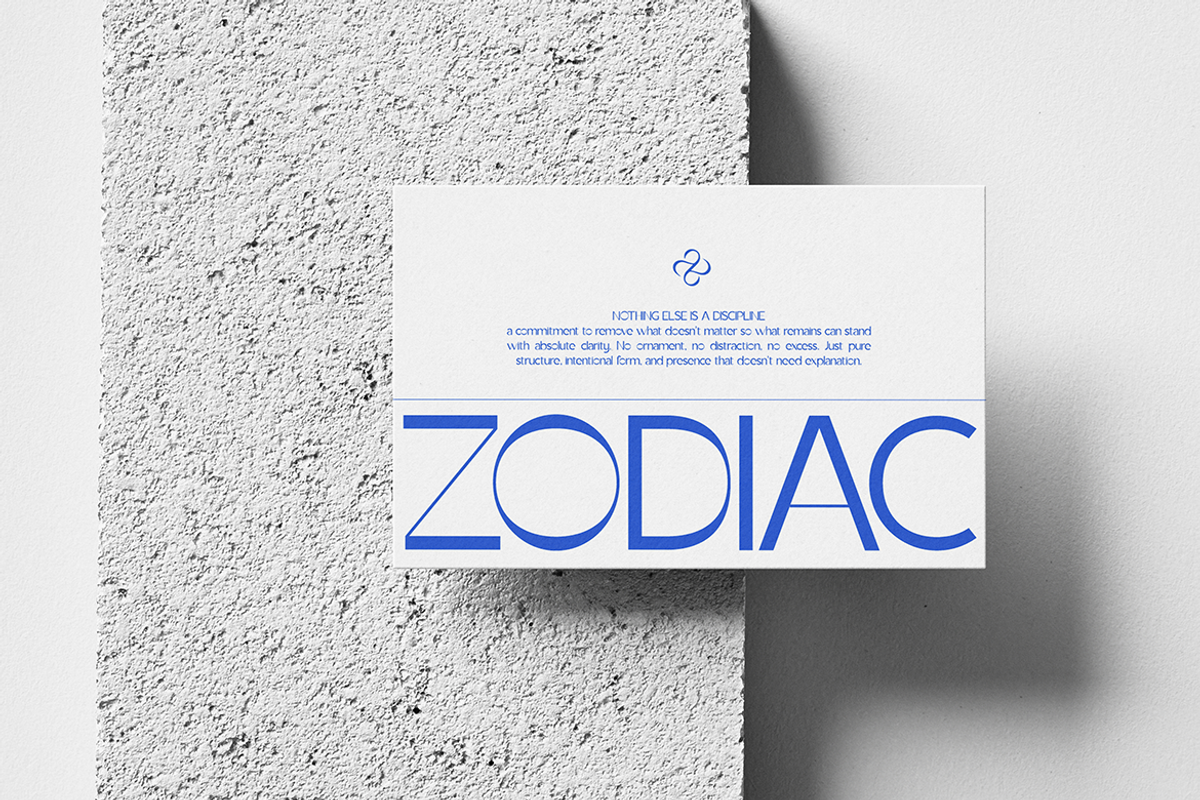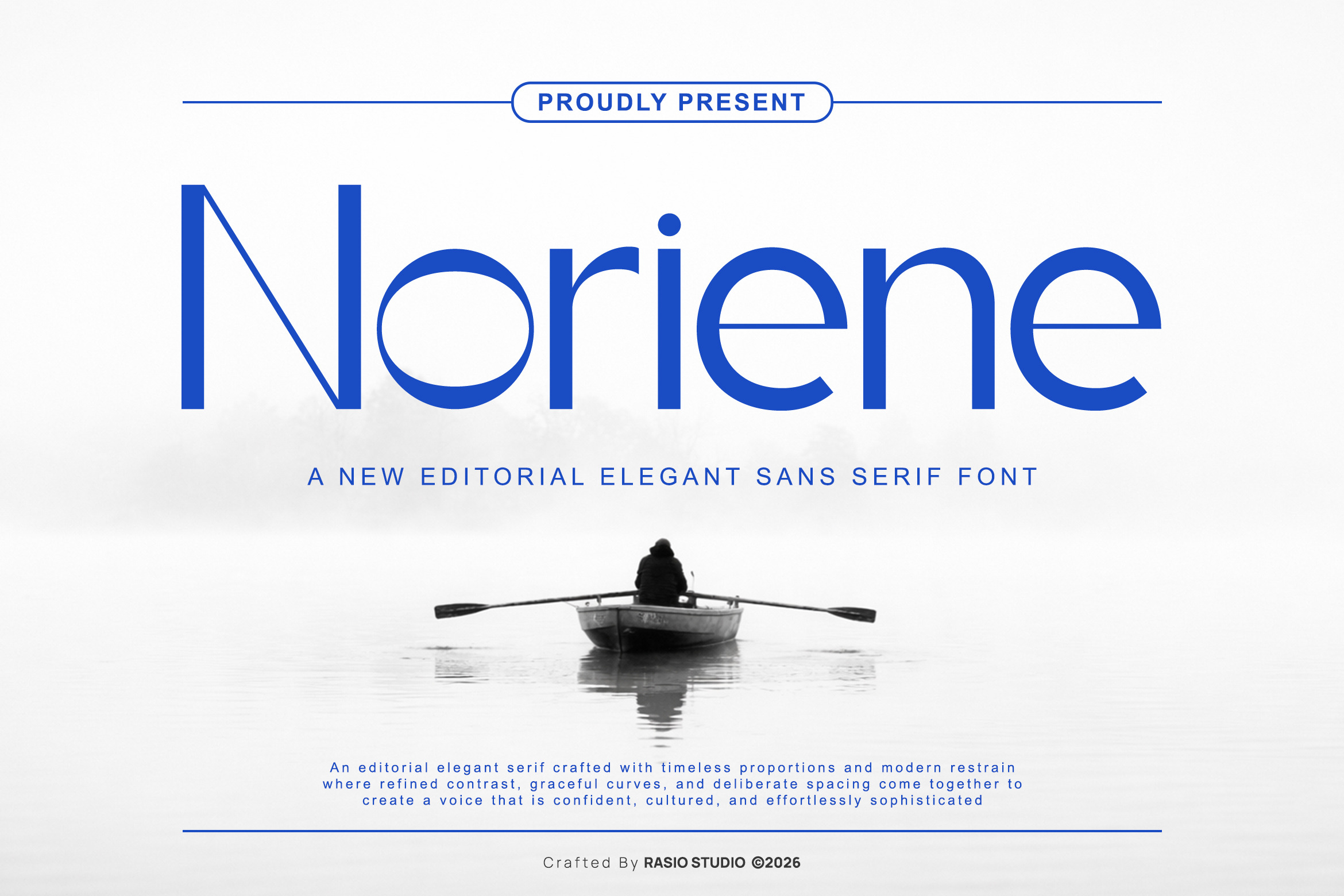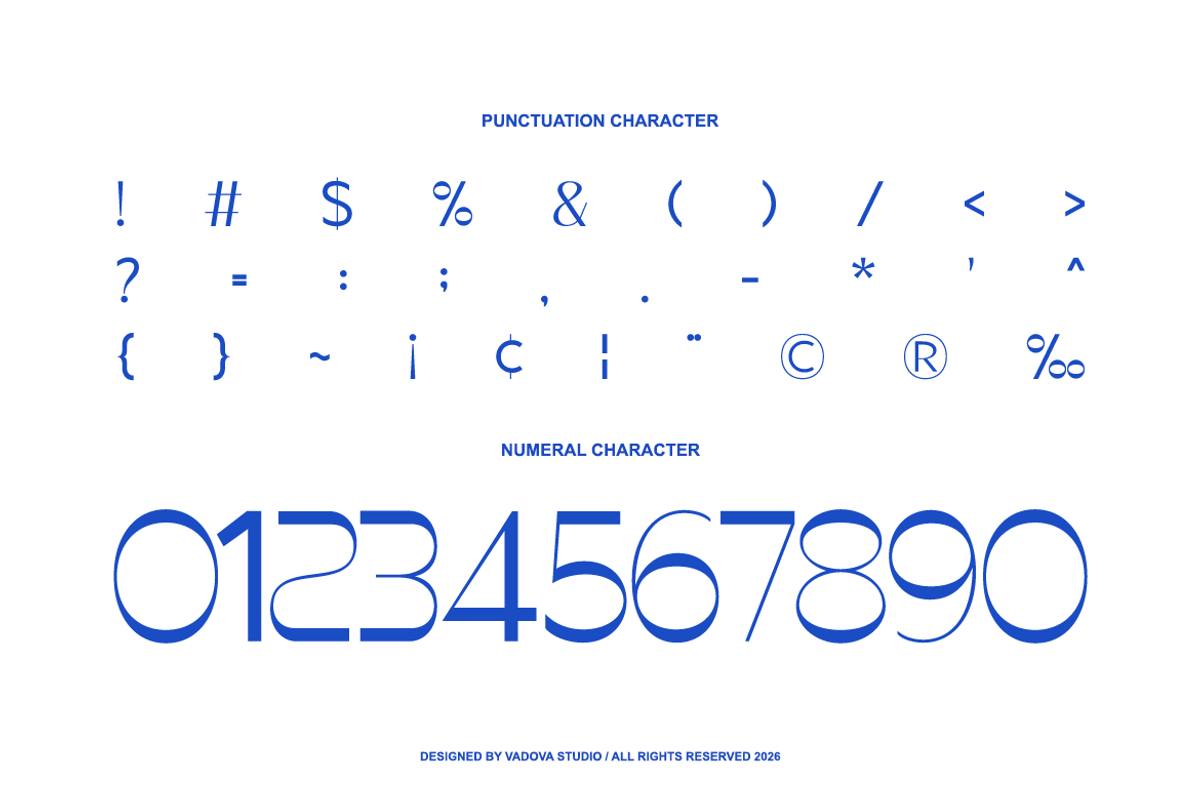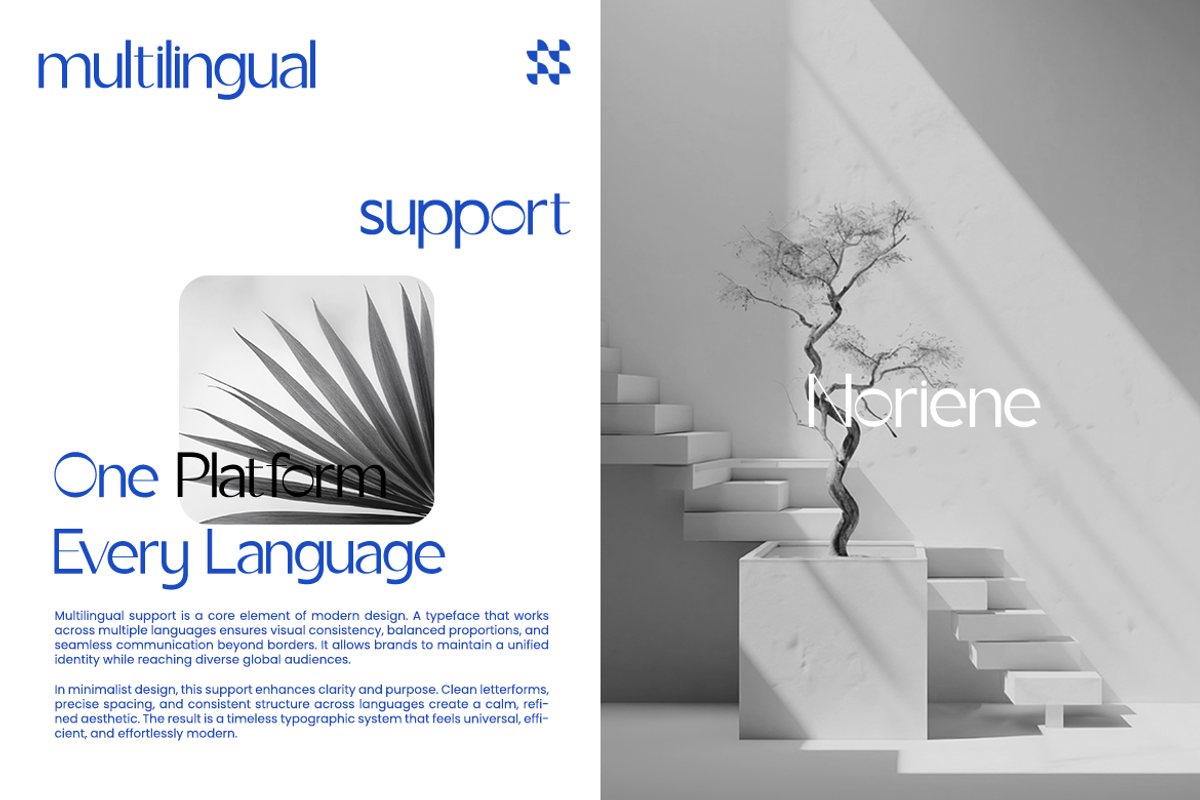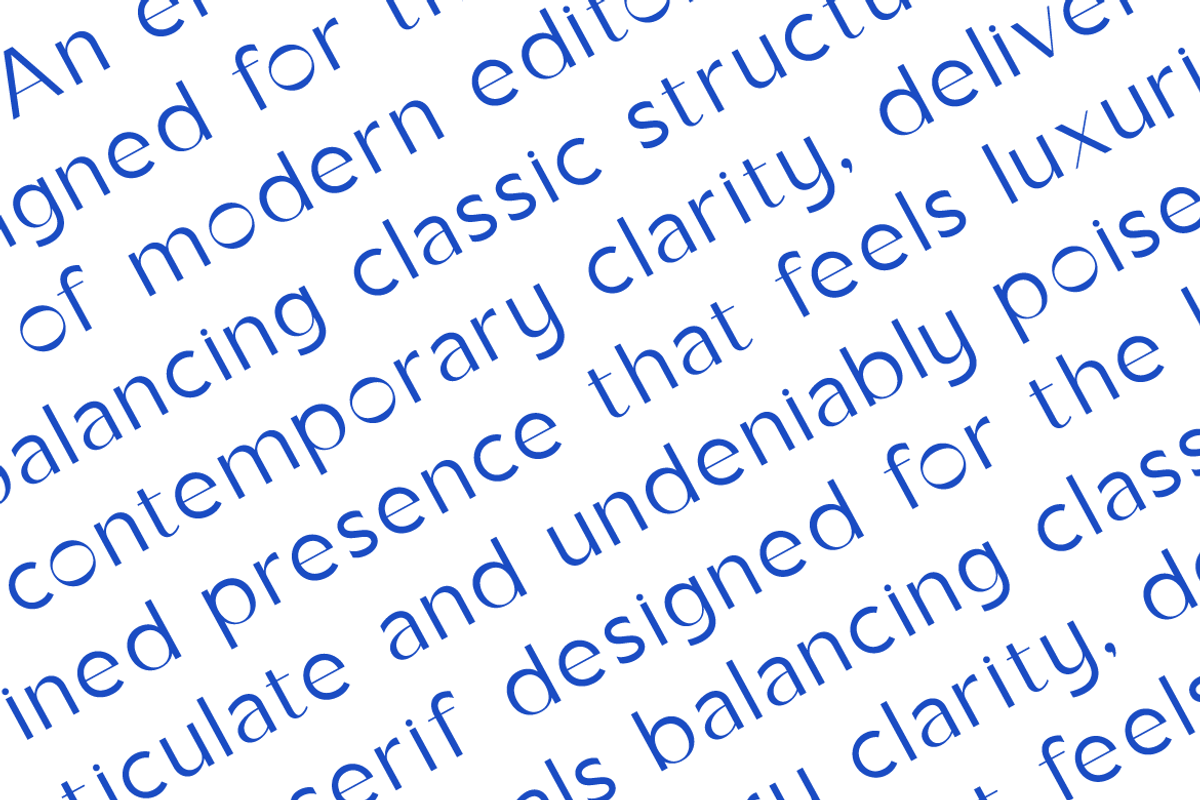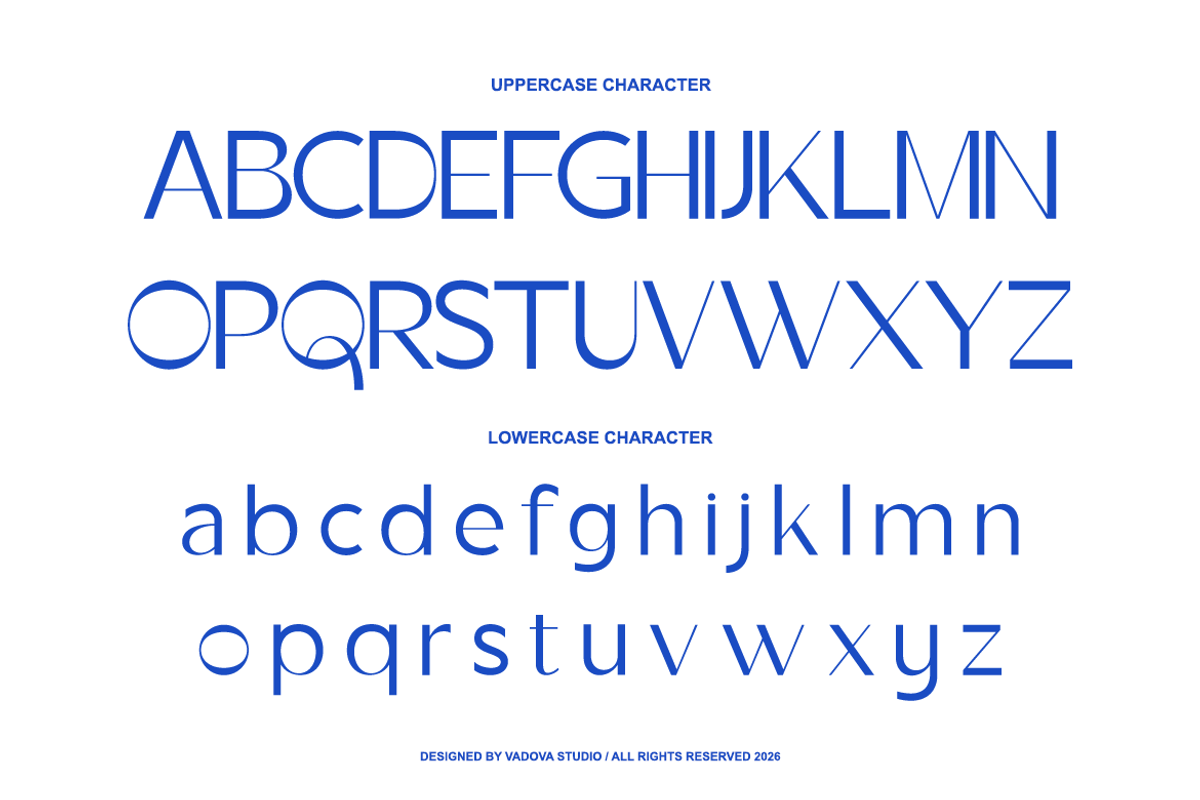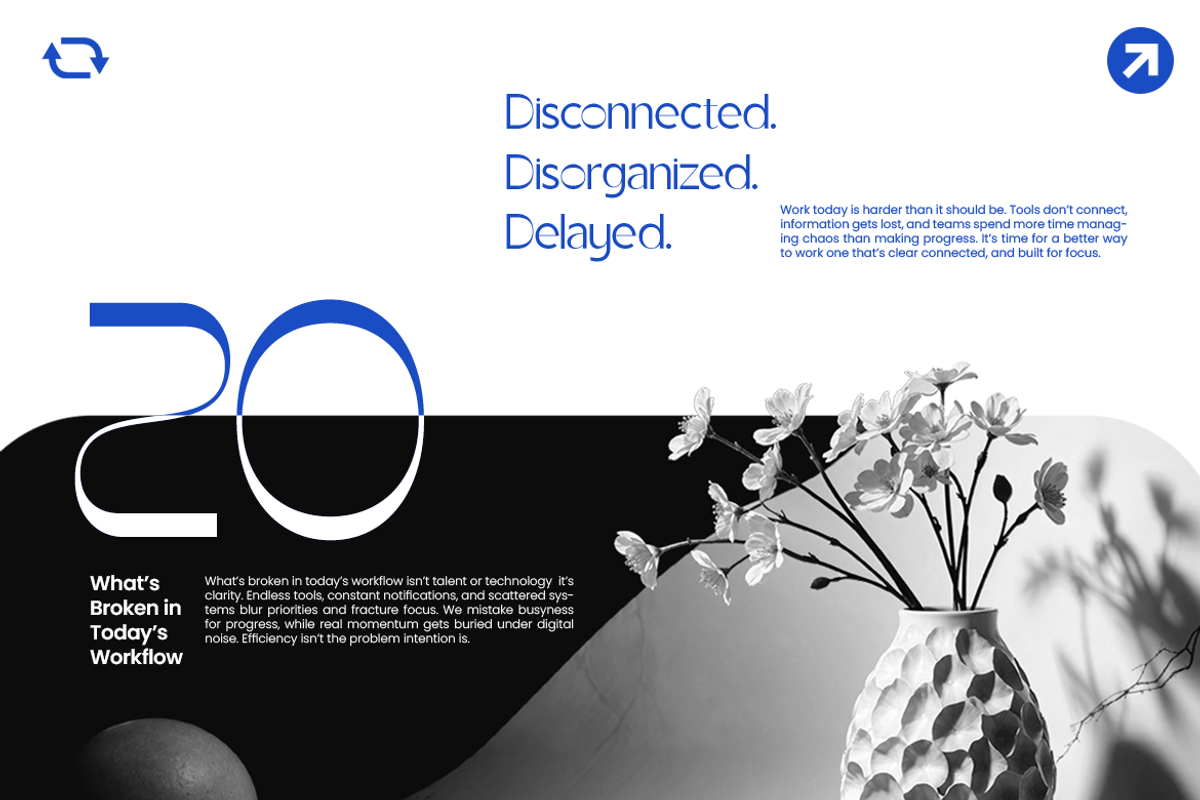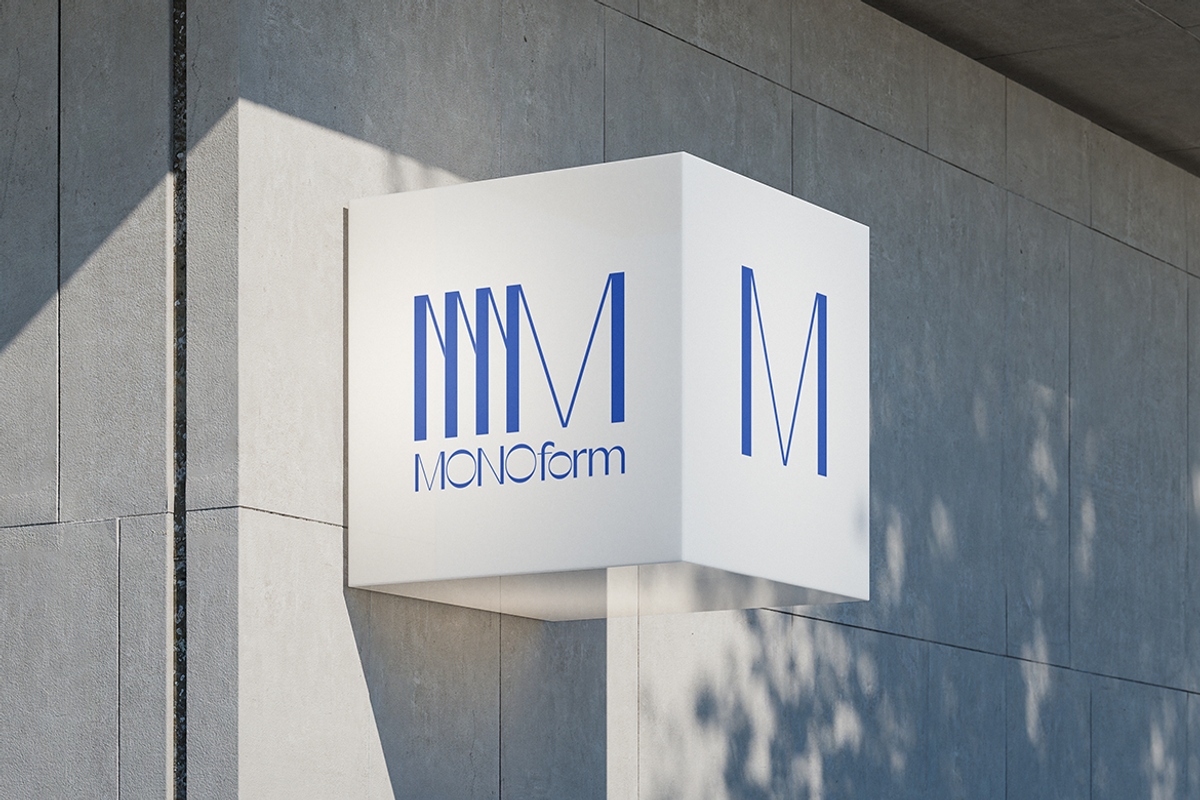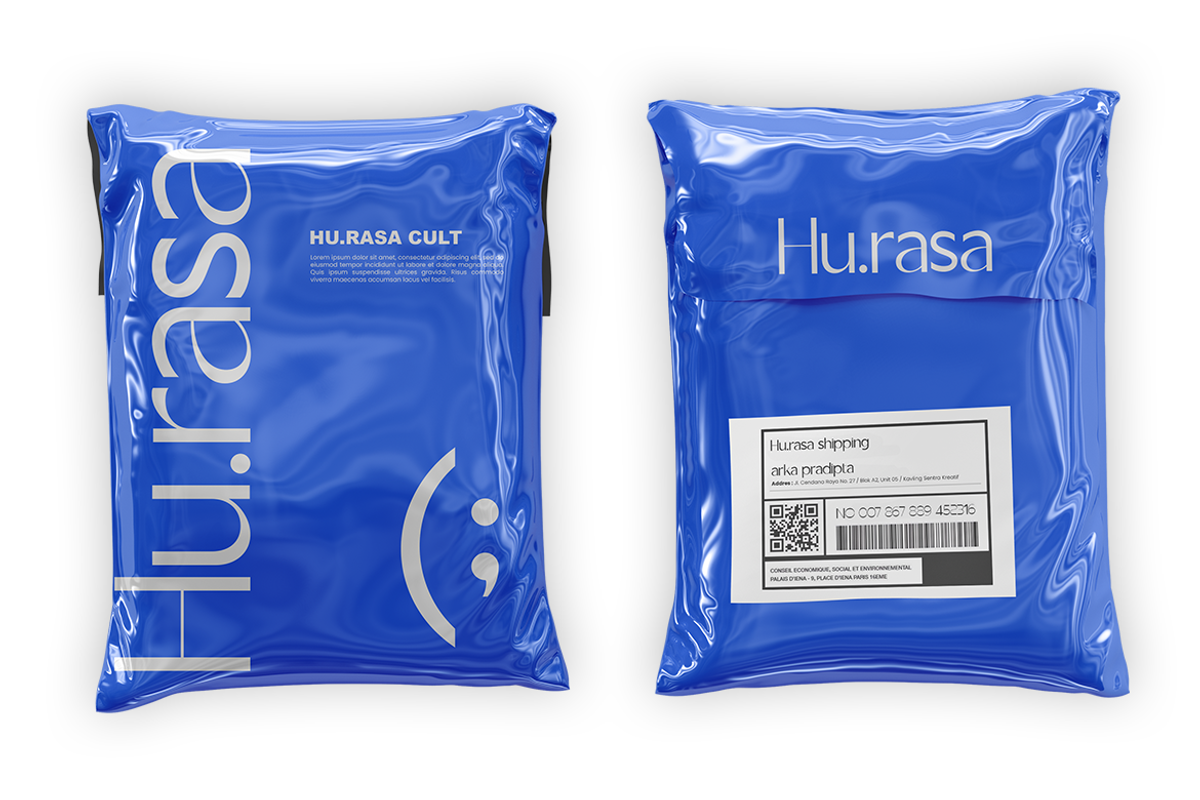
Noriene Editorial Elegant Sans Font
Noriene is a modern editorial sans serif typeface designed with refined proportions and a calm, sophisticated character. Its clean geometric structure is softened by subtle curves and elegant details, creating a balance between contemporary minimalism and timeless editorial style.The typeface features carefully crafted uppercase and lowercase characters, numerals, punctuation, and multilingual support.
Noriene is designed for projects that require a refined and contemporary typographic voice. Its clean and elegant structure makes it suitable for editorial design, corporate branding, modern websites, and professional marketing materials. The balanced proportions and minimalist aesthetic allow the font to perform beautifully in both display headlines and sophisticated layout compositions.
- Modern editorial sans serif with refined geometric proportions
- Distinctive circular cut details adding subtle character to letterforms
- Clean strokes and balanced structure for a contemporary aesthetic
- Smooth curves and minimalist construction for visual clarity
- Carefully adjusted spacing for elegant display and editorial readability
- Brand identity systems seeking a calm yet professional tone
- Modern website layouts and UI design for clean digital products
- Editorial magazines and minimalist book layouts
- Product packaging and label design for refined aesthetics
- Social media templates and digital marketing with elegant typography